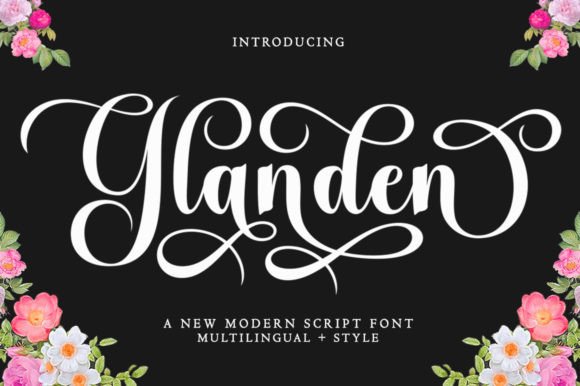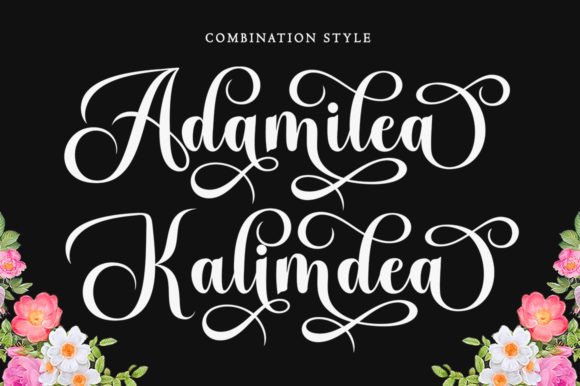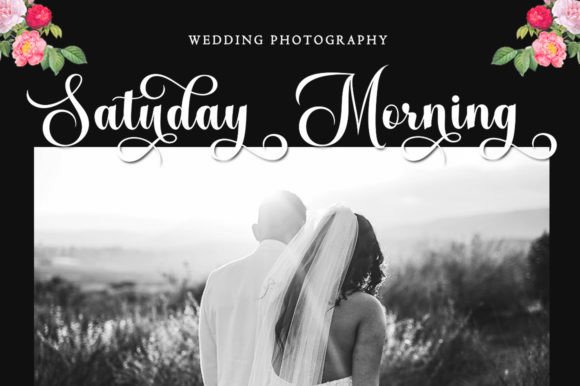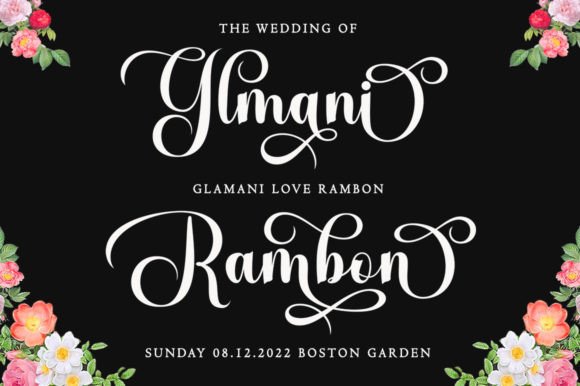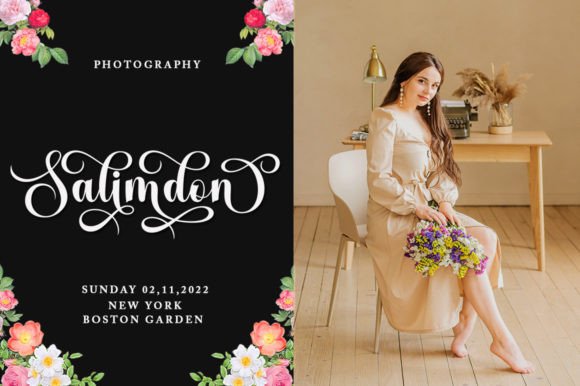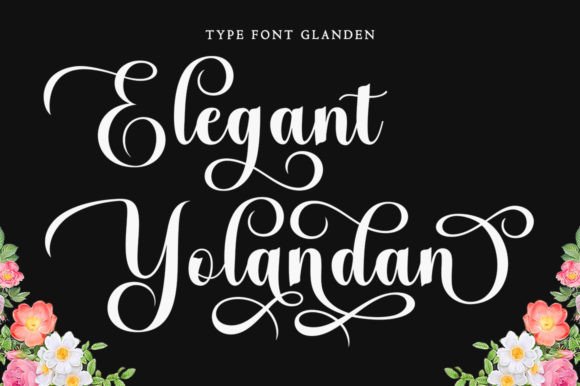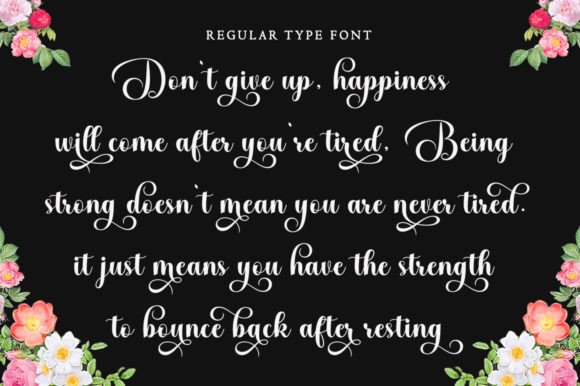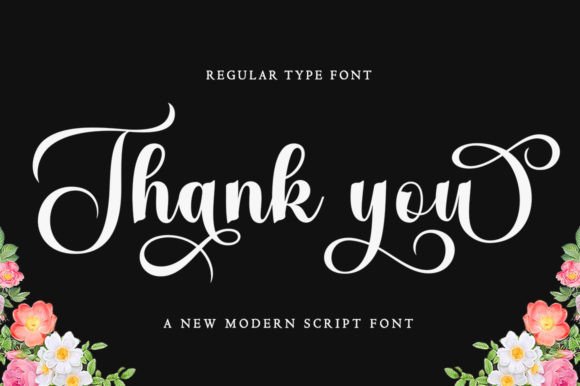
Glanden
About Glanden
Glanden is a very cute, elegant, and unique handwritten font. Glanden is attractive because it is sleek, clean, feminine, sensual, glamorous, simple, and highly readable, thanks to its many luxurious letter joints. Expertly designed to become a true favorite, this font has the potential to take your creative ideas to the highest level!